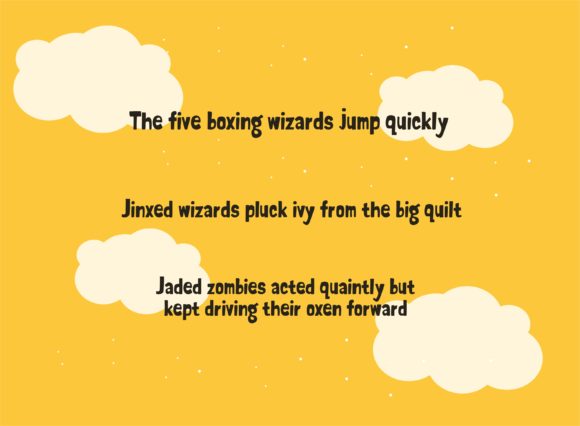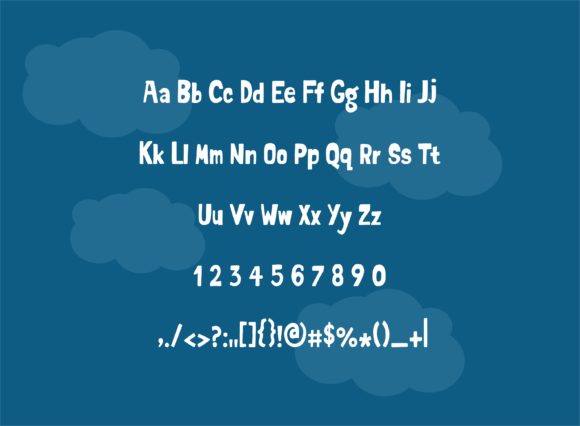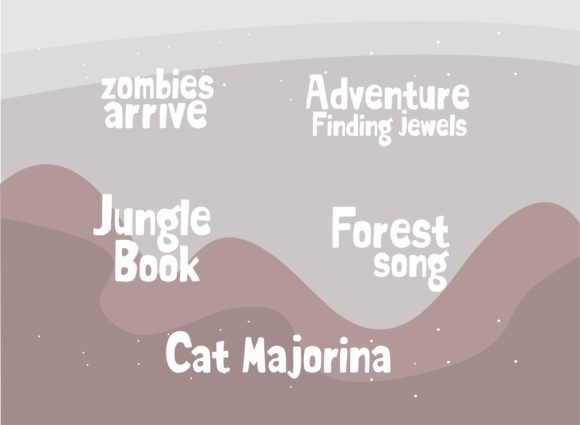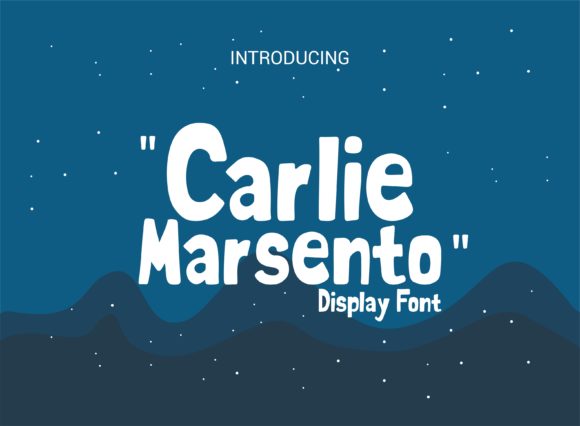
Introducing Carlie Marsento Font: The Cute and Casual Display Font for Creative Projects
Are you a designer, crafter, or DIY enthusiast looking for a font that can add a touch of friendliness and playfulness to your creative projects? Look no further than Carlie Marsento Font! This adorable display font is perfect for anyone who wants to turn their ideas into a true piece of art. In this article, we’ll dive into the features and benefits of Carlie Marsento Font, and explore how it can elevate your designs and DIY projects.
What is Carlie Marsento Font?
Carlie Marsento Font is a cute and casual display font that exudes an incredibly friendly feel. Its playful and approachable design makes it perfect for a wide range of creative projects, from social media graphics and Instagram posts to calligraphy scripts and DIY crafts. Whether you’re a professional designer or a hobbyist, this font is sure to inspire your creativity and bring a smile to your face.
Key Features of Carlie Marsento Font
So, what makes Carlie Marsento Font so special? Here are some of its key features:
• Cute and Casual Design: Carlie Marsento Font has a playful and relaxed design that’s perfect for creative projects that require a friendly and approachable feel.
• Display Font: This font is specifically designed as a display font, making it perfect for headlines, titles, and other attention-grabbing elements.
• Friendly Feel: The font has an incredibly friendly feel that’s sure to make your designs and DIY projects more approachable and engaging.
• Versatile: Carlie Marsento Font can be used for a wide range of creative projects, from social media graphics and Instagram posts to calligraphy scripts and DIY crafts.
Uses for Carlie Marsento Font
So, what can you use Carlie Marsento Font for? The possibilities are endless! Here are some ideas to get you started:
• Instagram Graphics: Use Carlie Marsento Font to create eye-catching Instagram graphics that showcase your personality and style.
• Calligraphy Scripts: This font is perfect for calligraphy scripts and hand-lettering projects, adding a touch of elegance and sophistication to your designs.
• DIY Projects: Carlie Marsento Font is great for DIY projects, such as crafting, scrapbooking, and journaling.
• Social Media Graphics: Use this font to create engaging social media graphics that grab attention and drive engagement.
Benefits of Using Carlie Marsento Font
So, why should you choose Carlie Marsento Font for your creative projects? Here are some benefits of using this amazing font:
• Easy to Read: Carlie Marsento Font is easy to read, even at small sizes, making it perfect for a wide range of creative projects.
• Unique and Creative: This font has a unique and creative design that’s sure to make your designs and DIY projects stand out.
• High-Quality: This font is designed with high-quality and precision, ensuring that your designs and DIY projects look professional and polished.
In conclusion, Carlie Marsento Font is a cute and casual display font that’s perfect for designers, crafters, and DIY enthusiasts who want to add a touch of friendliness and playfulness to their creative projects. With its unique and creative design, versatility, and ease of use, this font is sure to inspire your creativity and bring your ideas to life. So why wait? Download Carlie Marsento Font today and start creating amazing designs and DIY projects that showcase your personality and style!